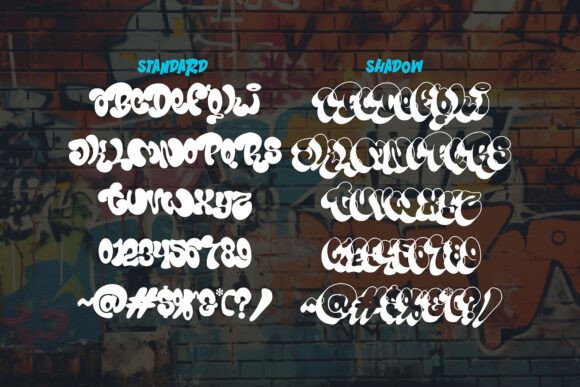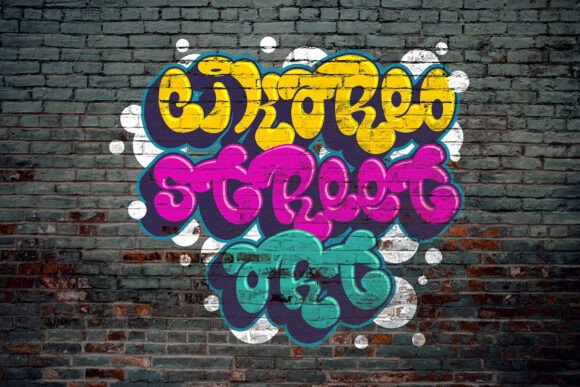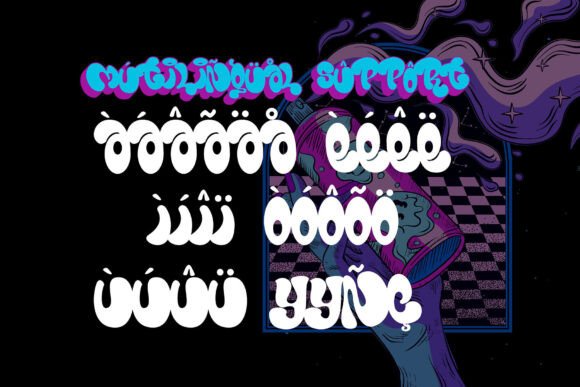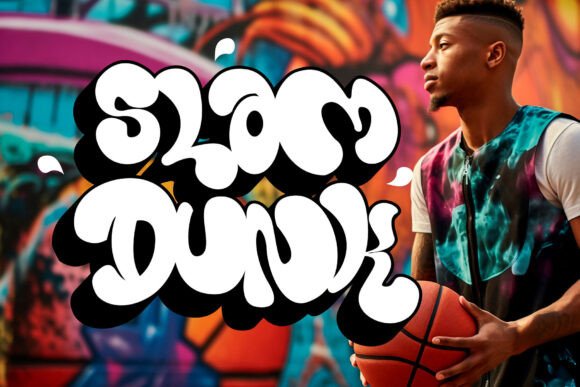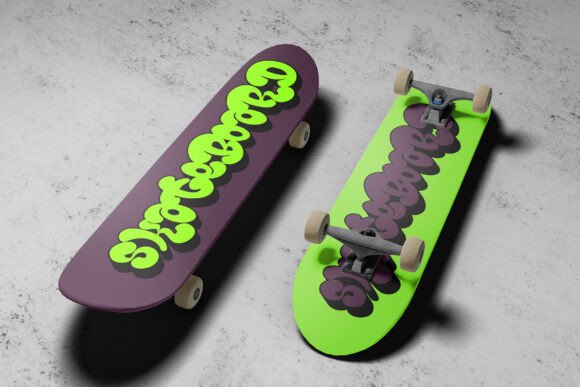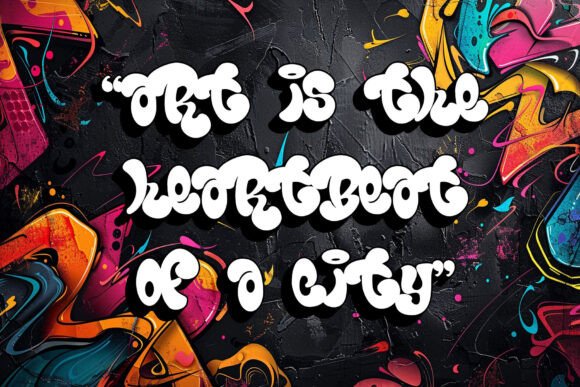
Introduction to Bomber Marker Font Font
Fonts play a crucial role in design, and the Bomber Marker Font font is a typeface that brings both character and versatility to any project. Whether you’re working on a branding project, a website, or a print design, the Bomber Marker Font font offers a unique style that can elevate your work.
Presenting Bomber Marker, a graffiti font exuding an audacious allure and an idiosyncratic charm.
With its assertive, hefty silhouette, it injects an edgy, street-style nuance into your creative endeavors Intricately designed with a dual-layer framework – Solid and Shadow, Bomber Marker crafts an intriguing interplay of depth that elevates the prominence of your text, imbuing it with a spirited graffiti undertone.
Key Features of Bomber Marker Font Font
Why Choose Bomber Marker Font Font?
The Bomber Marker Font font is more than just a typeface – it’s a design tool that helps you communicate your message with style and clarity. Its unique character set and versatile design make it suitable for a wide range of applications, from elegant invitations to bold headlines.
With its carefully crafted letterforms and balanced proportions, the Bomber Marker Font font ensures readability and visual appeal across all mediums.
What makes Bomber Marker Font font special?
The Bomber Marker Font font stands out with its unique design, exceptional readability, and versatility across various design applications.